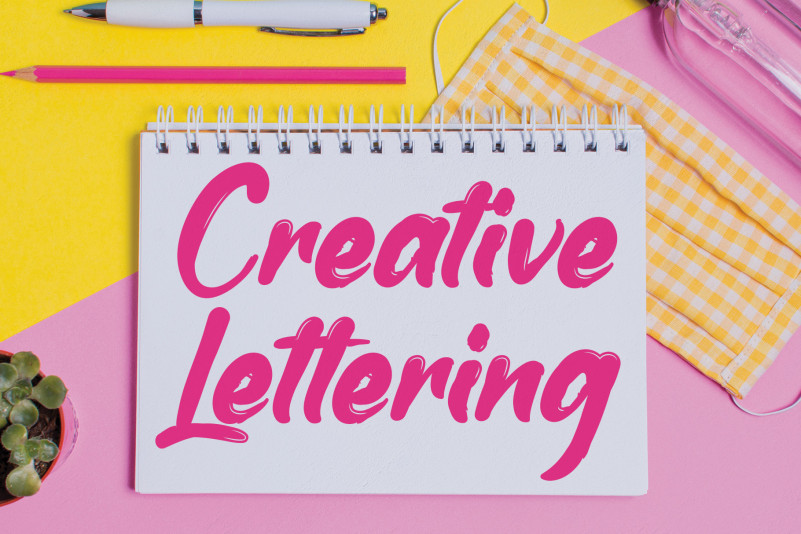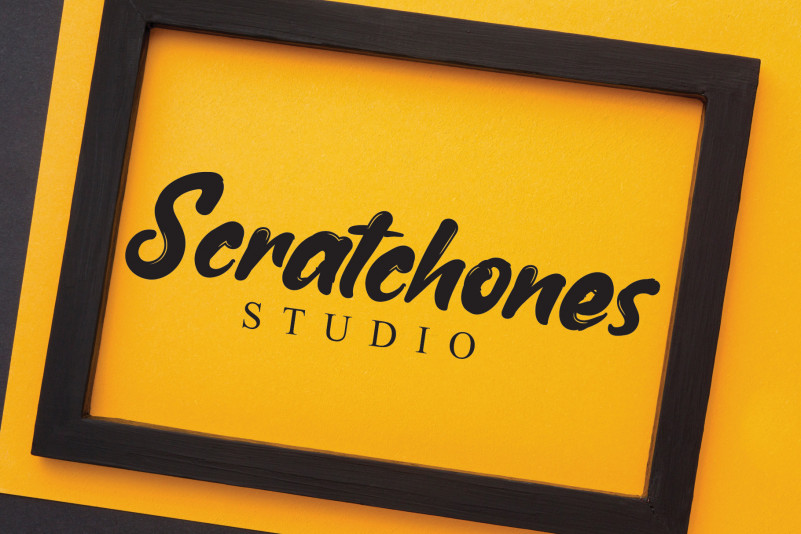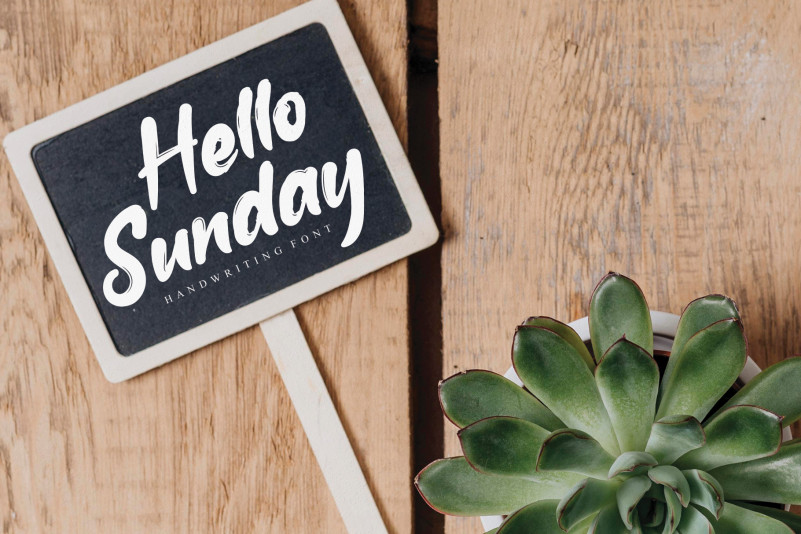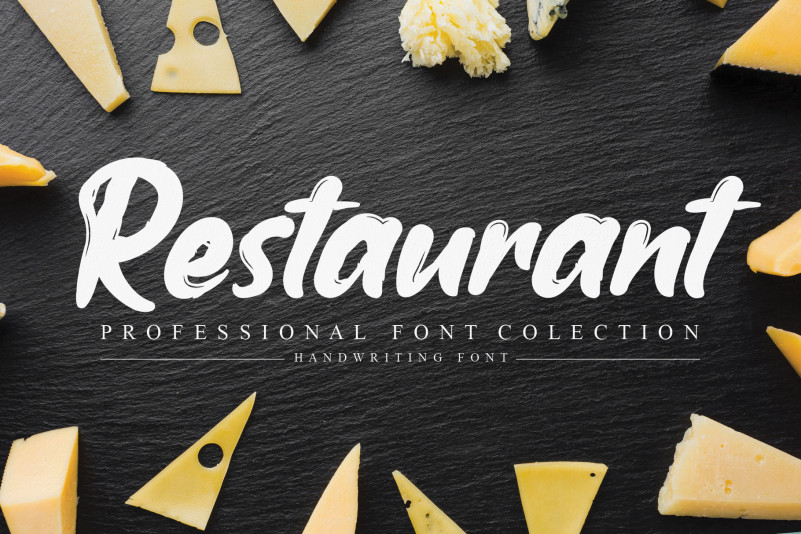
Winter Glisten Script Font
Winter Glisten Script Font is a bold and casual handwritten font made with a brush. Use this gorgeous and unique font to bring any DIY project to life!